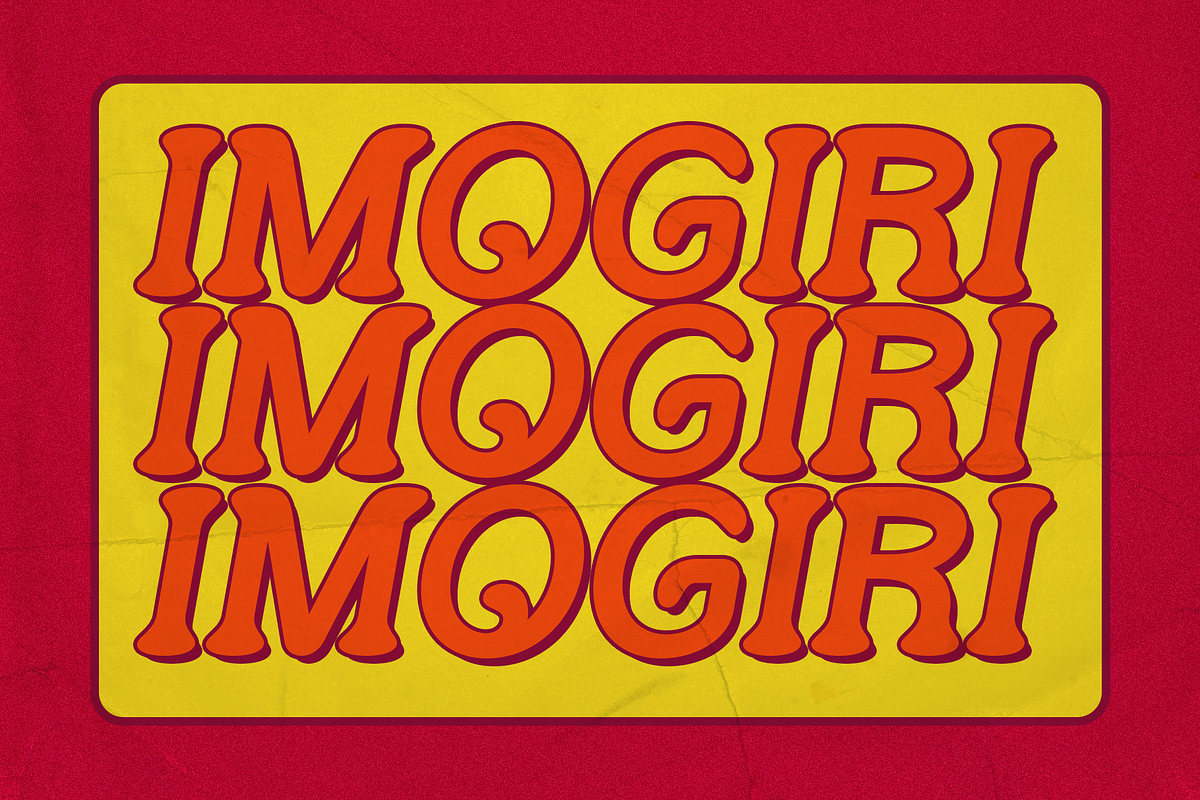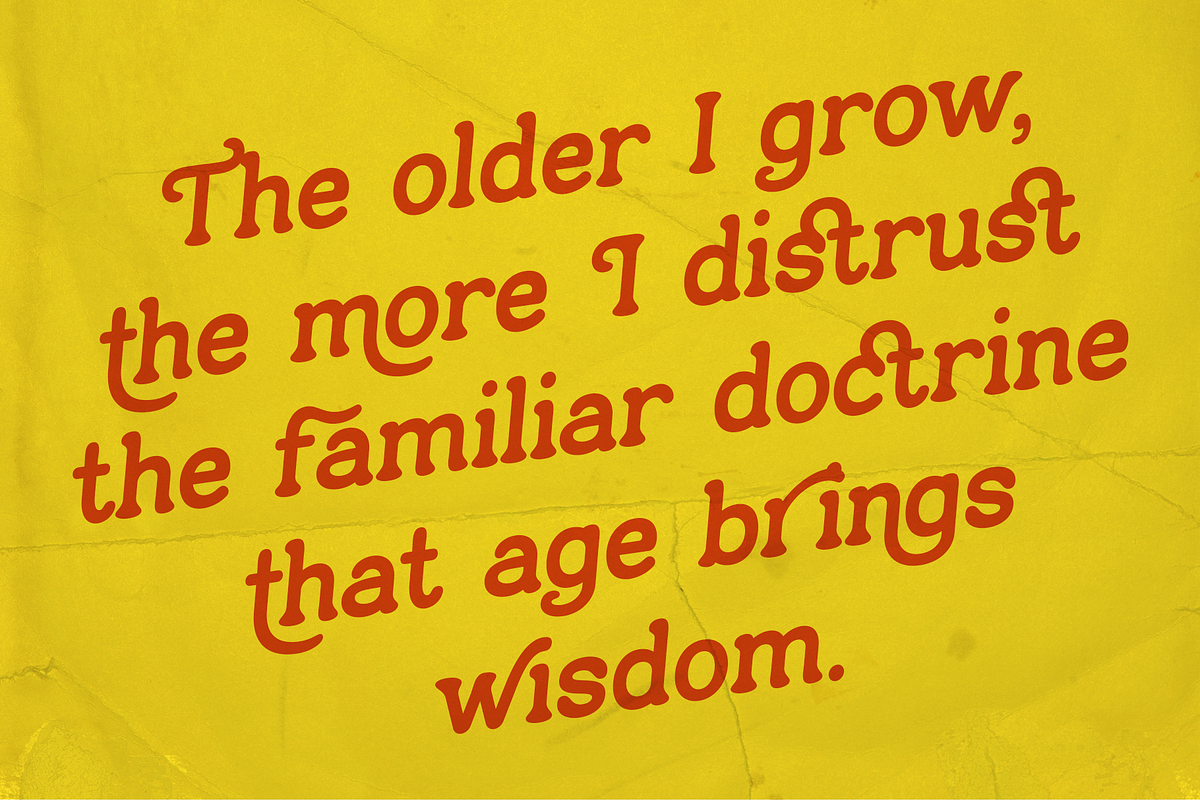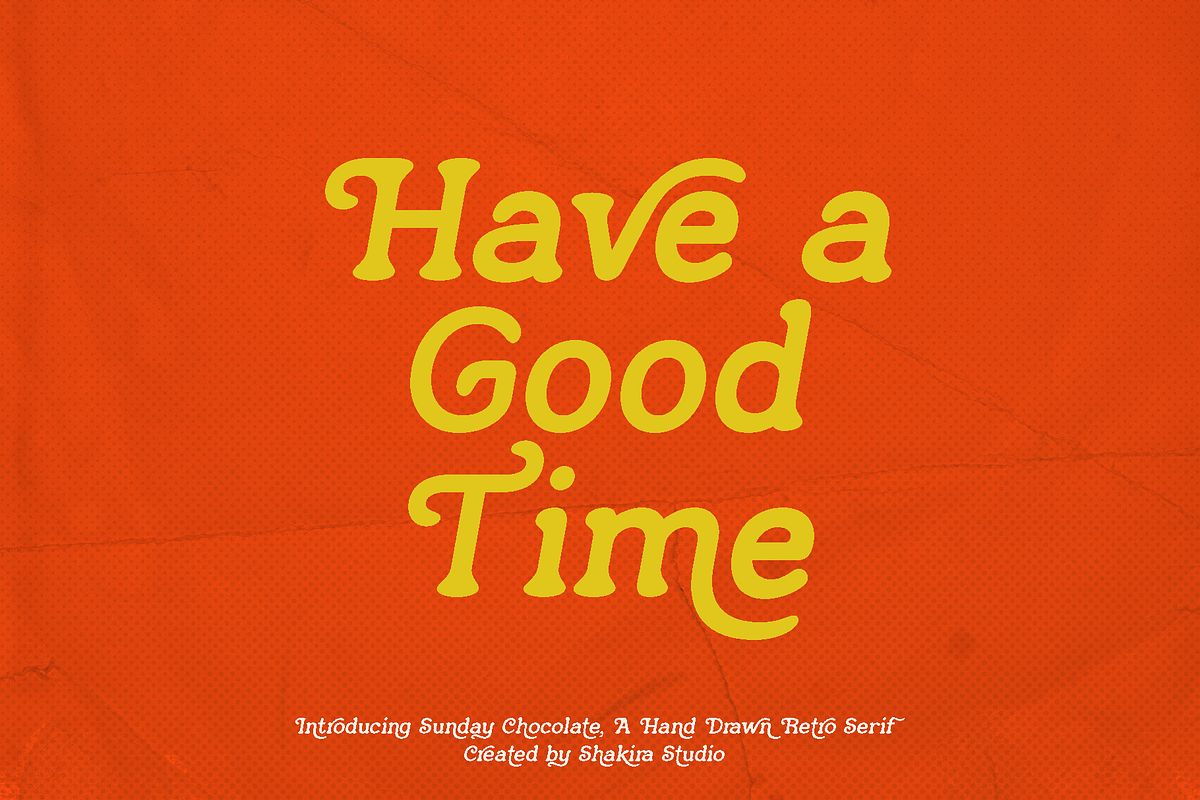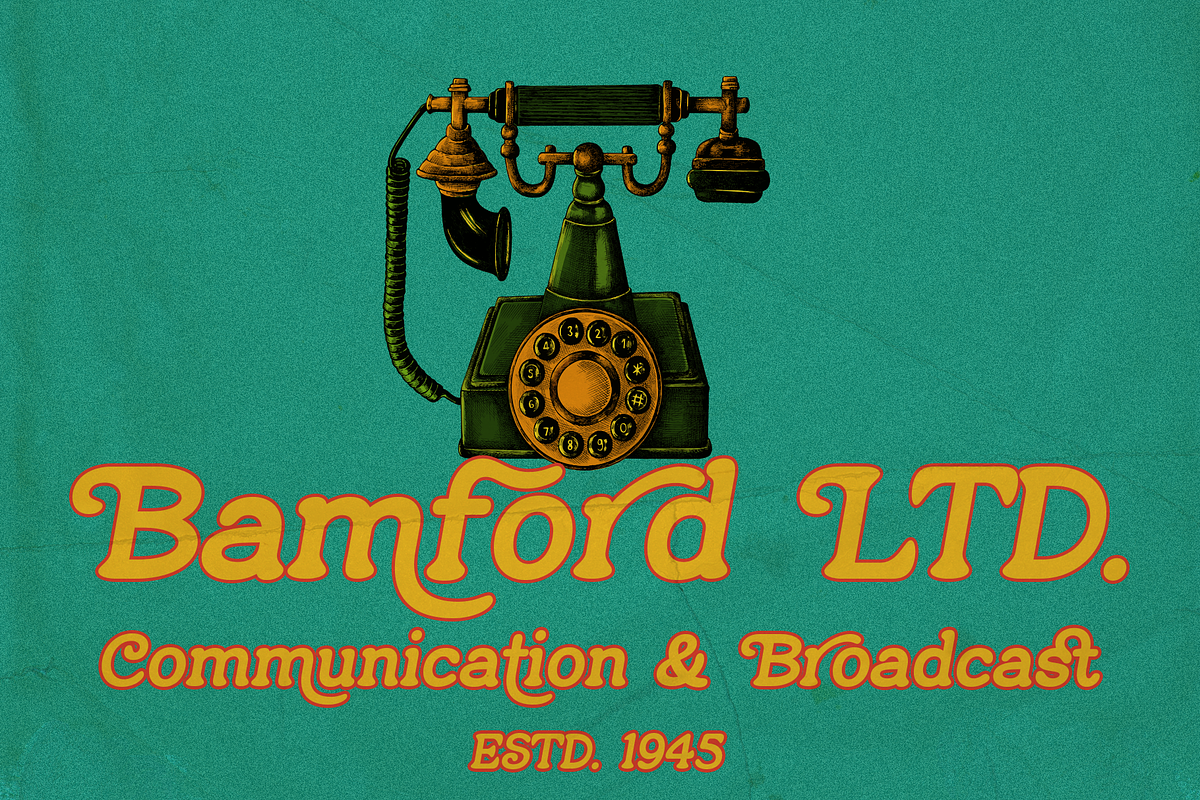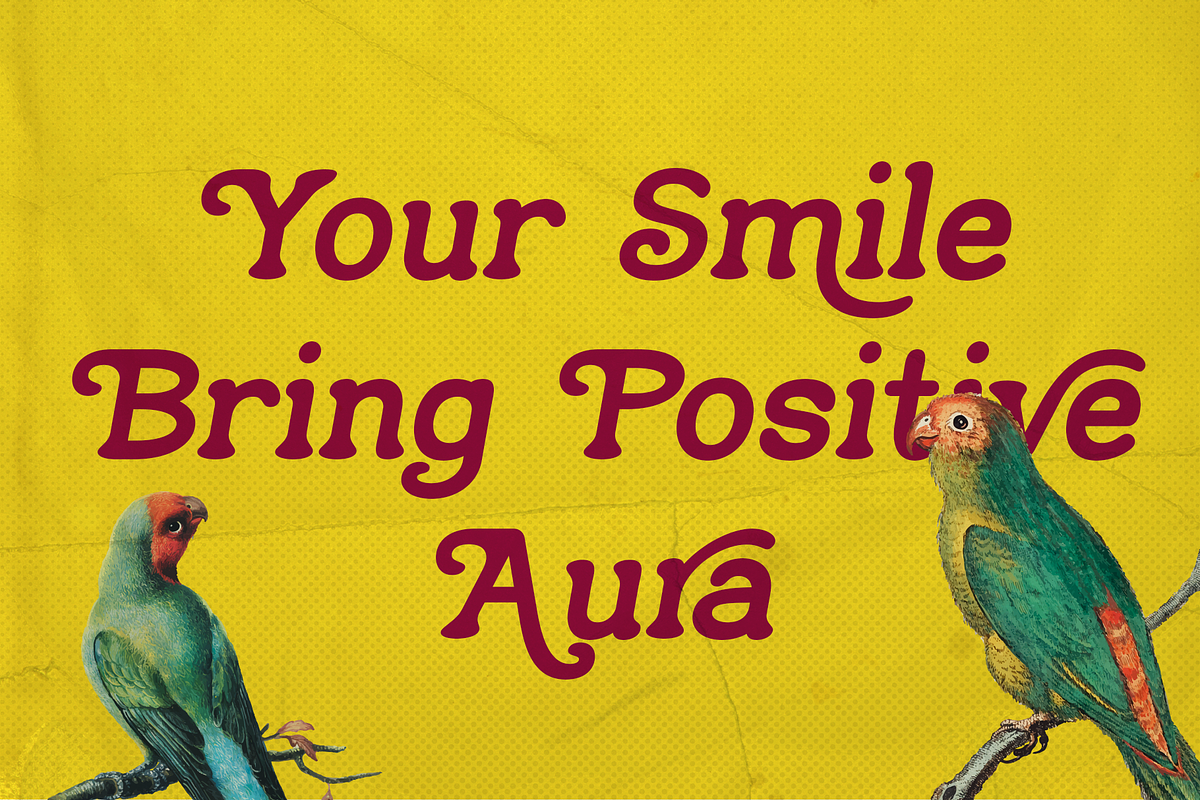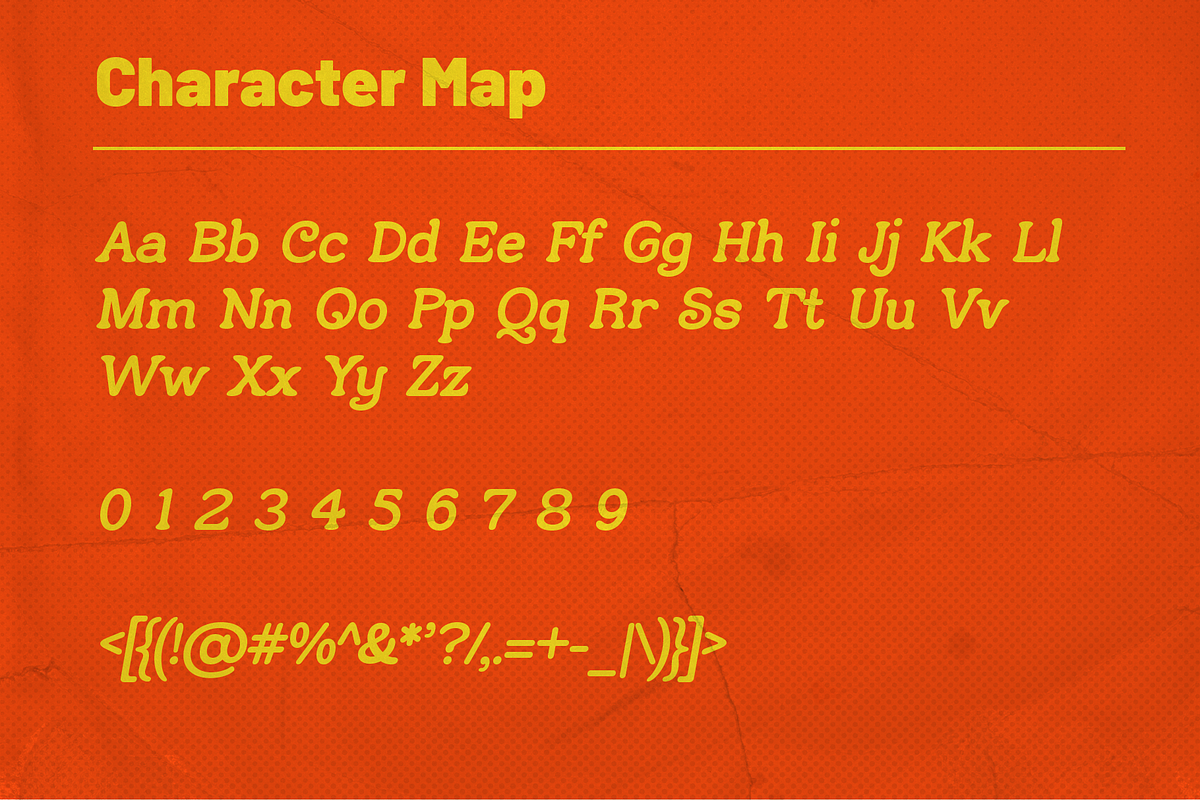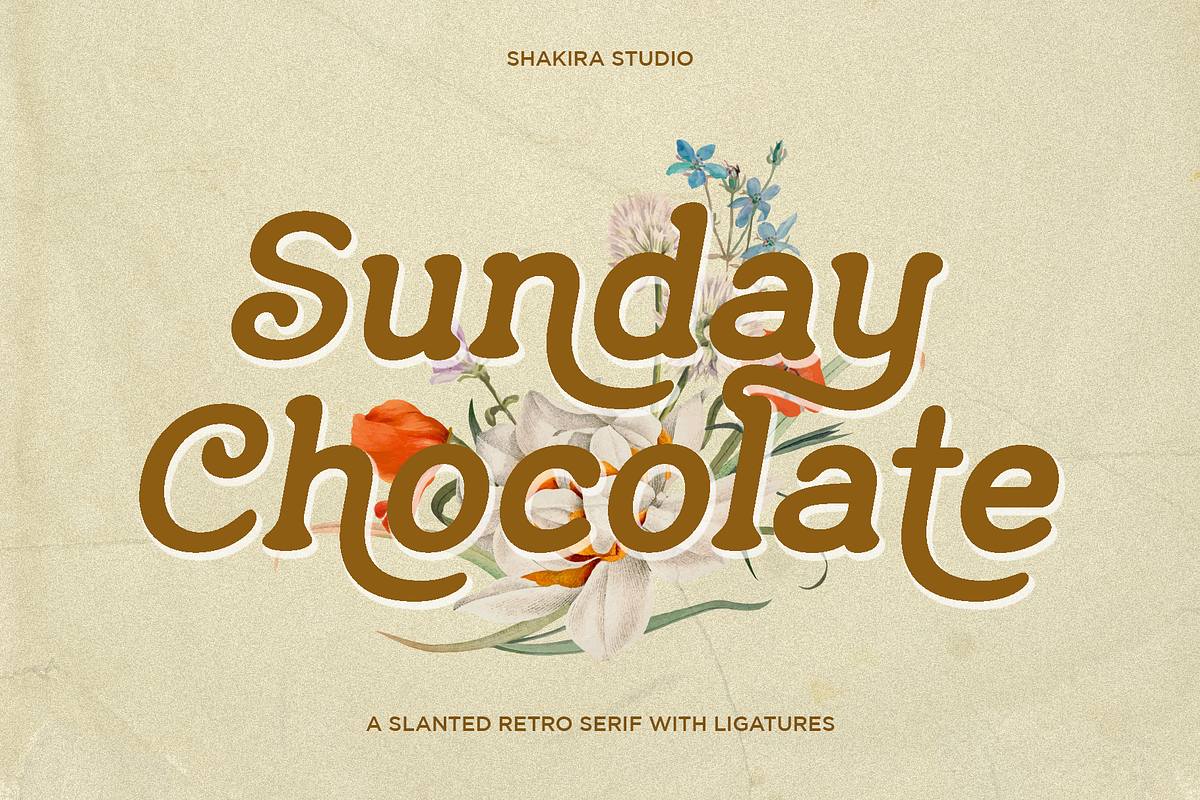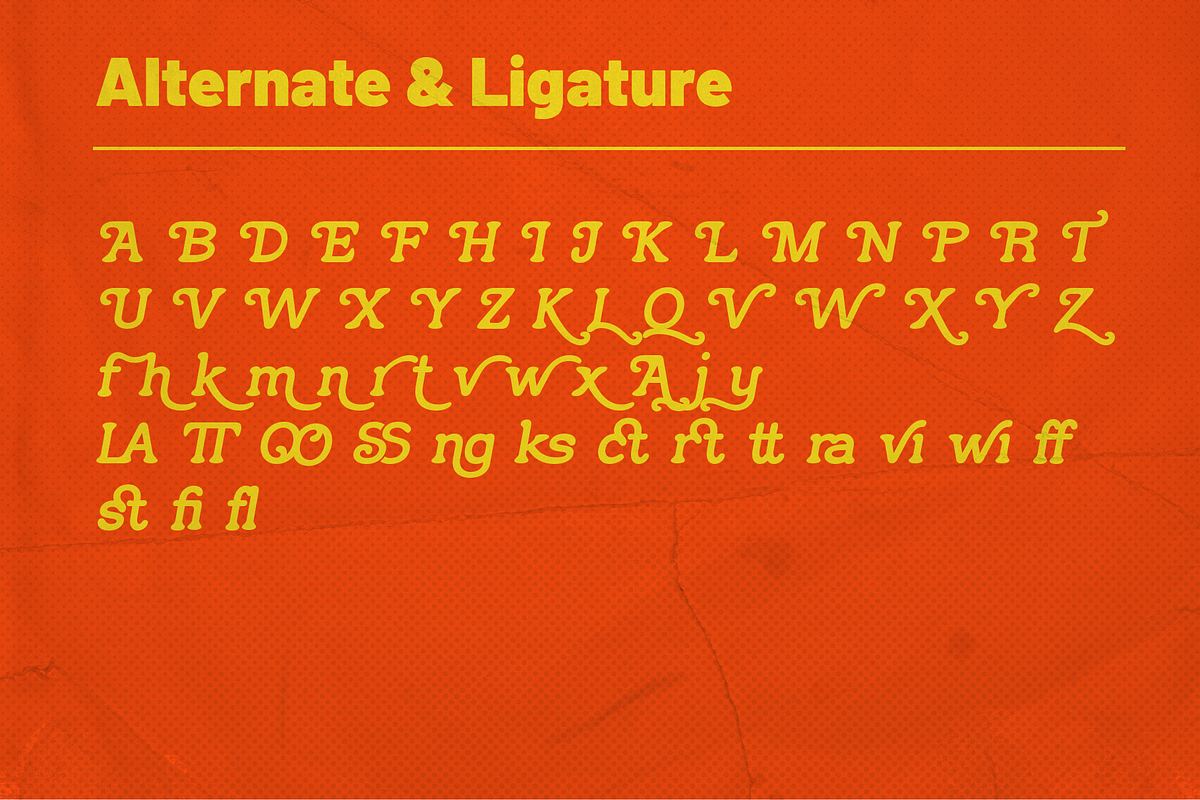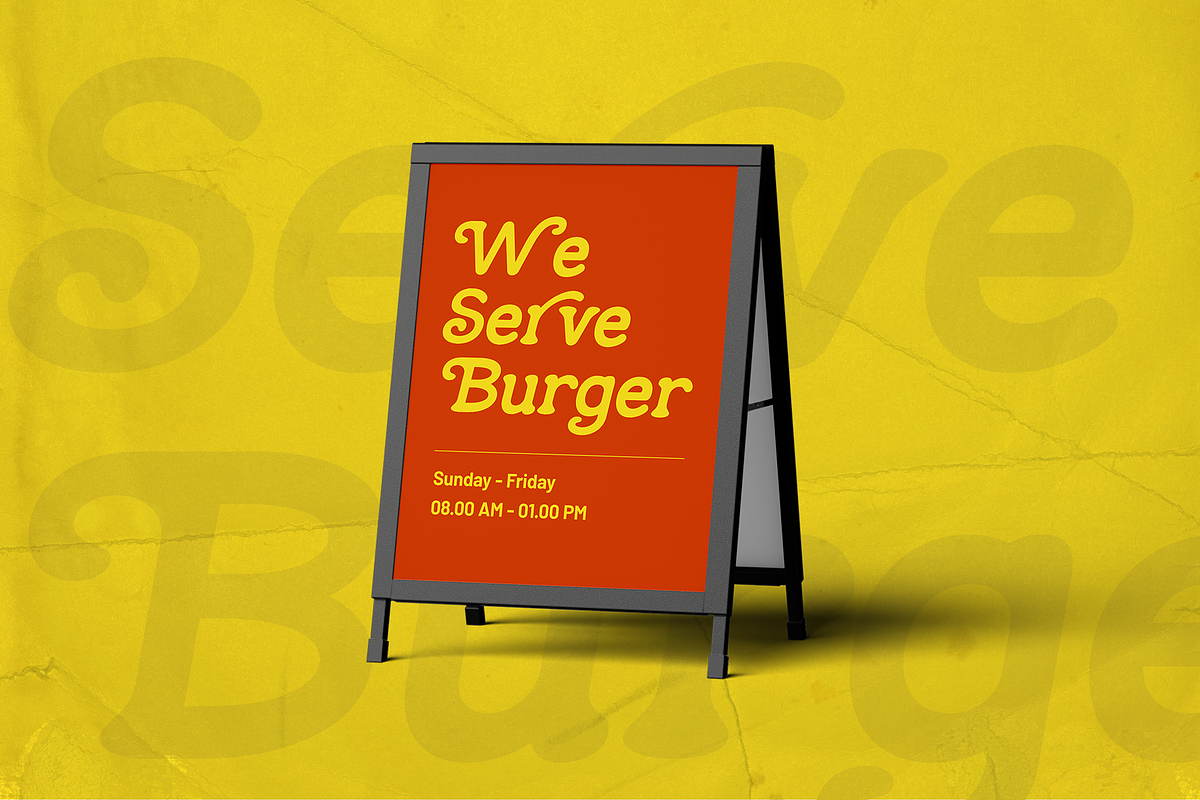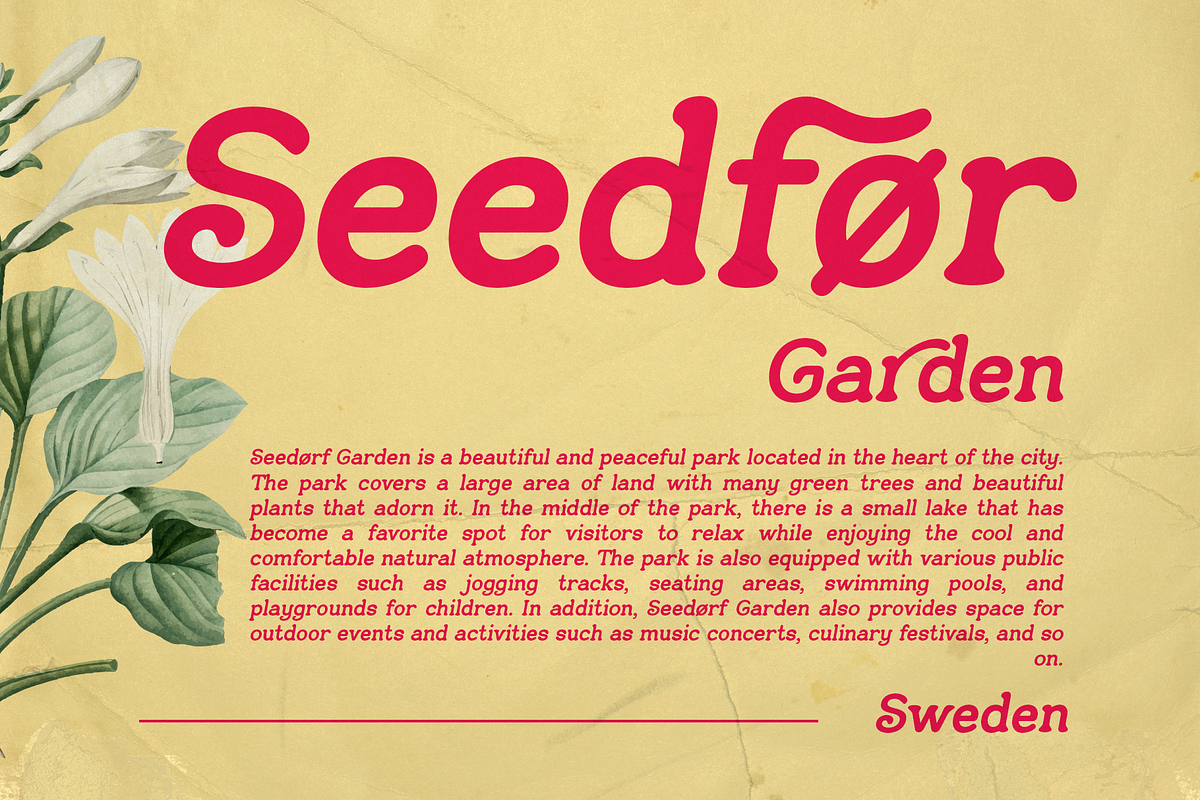
Sunday Chocolate - Retro Serif
Introducing Sunday Chocolate - Your Flavorful Retro Slanted Serif Font!
Sunday Chocolate isn't just a serif font; it's a delightful blend of retro charm and contemporary flair that's currently taking the design world by storm. With its slanted characters and vintage-inspired serifs, Sunday Chocolate embodies the essence of #RetroFonts and #TypographyTrends.
Crafted for designers seeking to infuse their projects with a touch of nostalgia and style, Sunday Chocolate offers a perfect balance between retro aesthetics and modern design sensibilities. Whether you're working on branding, posters, or editorial layouts, this font adds a flavorful twist that's sure to captivate your audience.
- Opentype features ( ligature, alternate )
Multilingual character supports : (Afrikaans, Albanian, Catalan, Croatian, Czech, Danish, Dutch, English, Estonian, Finnish, French, German, Hungarian, Icelandic, Italian, Lithuanian, Maltese, Norwegian, Polish, Portuguese, Slovenian, Spanish, Swedish, Turkish, Zulu)